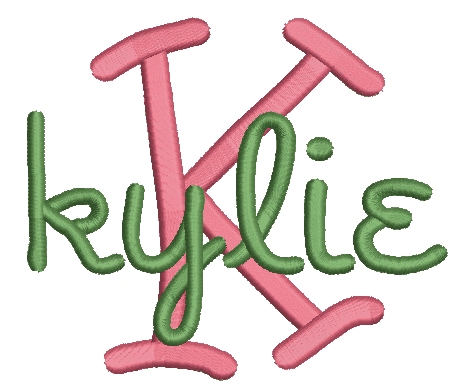
No 12 Bold STACKED Font Machine Embroidery Designs 4 inch high
This set contains 52 designs:
Uppercase Alphabet - just under 4" high
Lowercase Alphabet - between 1" and 1 3/4" high
Designed for stacking